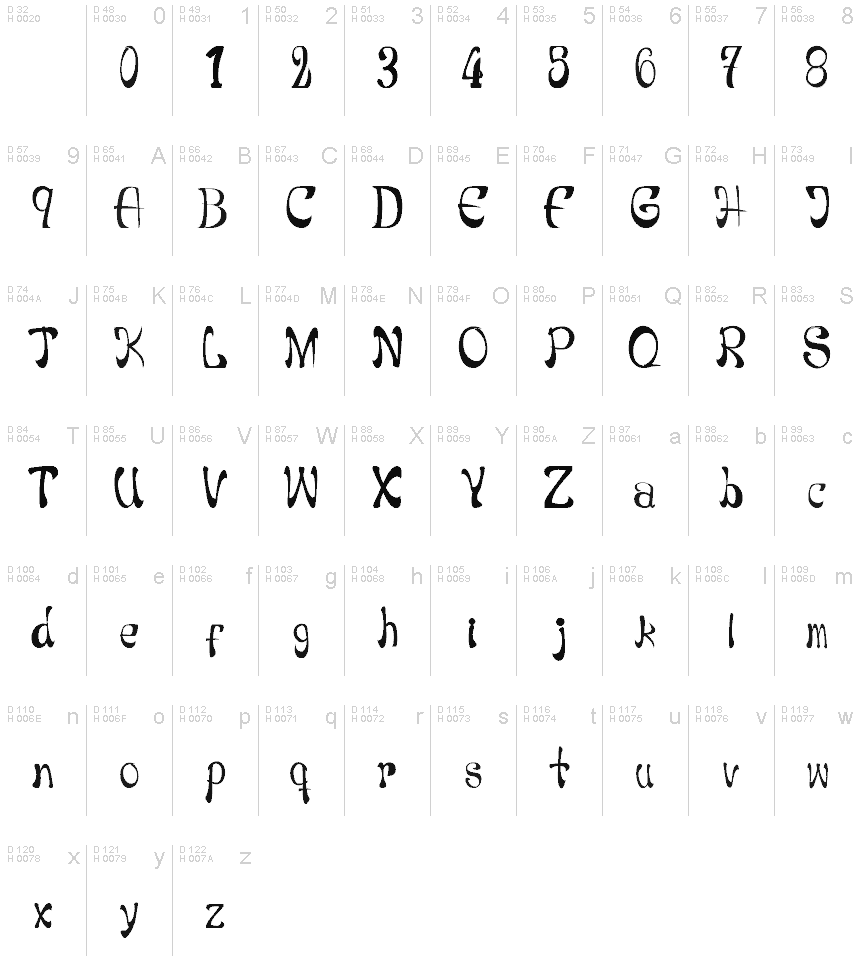
NAVZ
NAVZ is a striking and distinctive display font that immediately captivates the viewer. Designed by Nohely Zelayandia, this typeface boasts a bold, organic aesthetic with fluid, expressive letterforms. The irregular, organic contours and asymmetrical shapes lend a sense of dynamism and movement, making NAVZ an exceptional choice for attention-grabbing headlines, logos, and other display applications.
The font's unique character is further enhanced by its intricate, interlocking structures, which create a visually compelling and cohesive typographic system. NAVZ's versatility allows it to seamlessly transition between elegant, sophisticated contexts and more playful, youthful design environments, making it a versatile tool in the designer's arsenal.